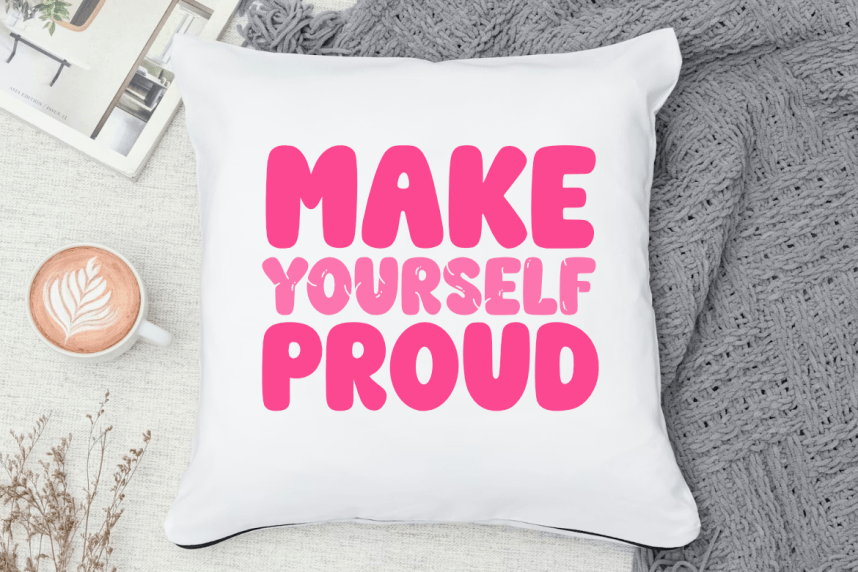
Love Girl – Retro Bubble Font
Love Girl – Retro Bubble Font is a retro bubble display font inspired by the groovy aesthetics of the 70s mixed with modern romantic doodles and the sweetness of candy-colored nostalgia. Featuring charming heart accents and soft, rounded curves, this typeface is designed to bring a playful and affectionate vibe to your creative projects.